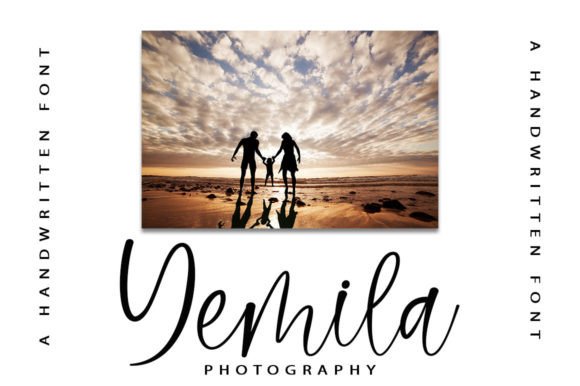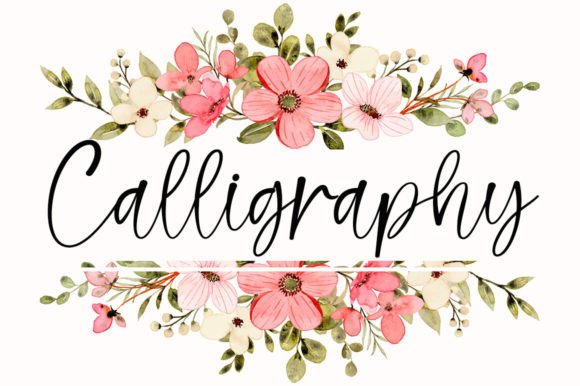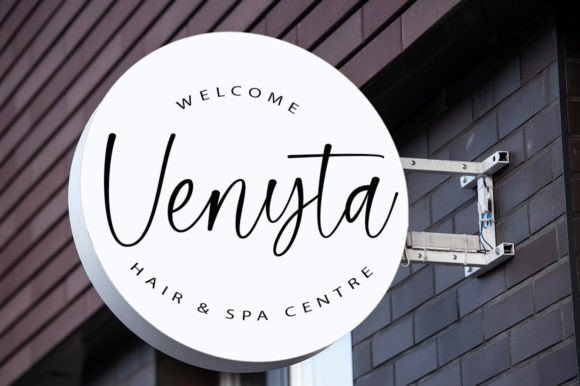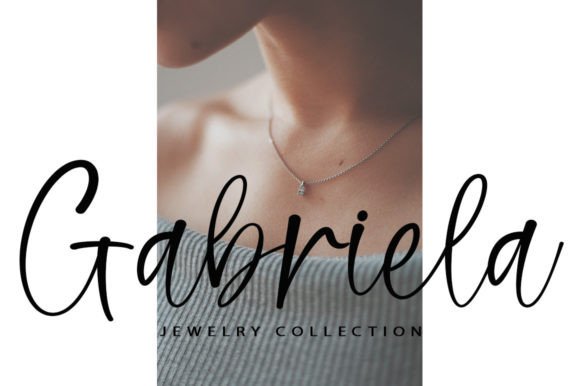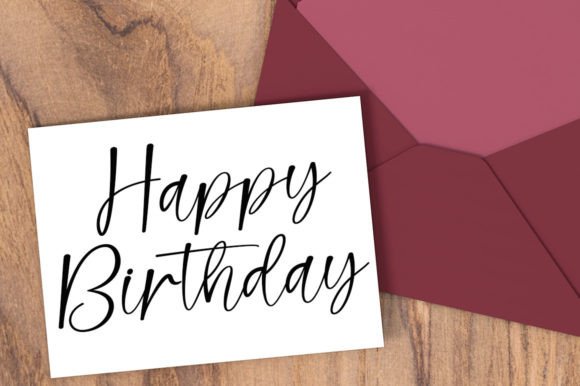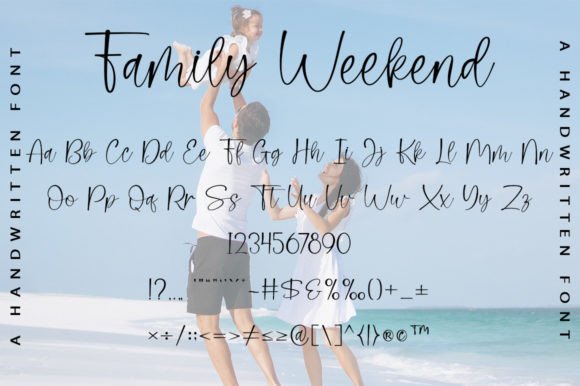
Introduction to Family Weekend Font
Family Weekend feels equally charming and elegant.
It looks stunning on wedding invitations, thank you cards, quotes, greeting cards, logos, business cards, and every other design which needs a handwritten touch .